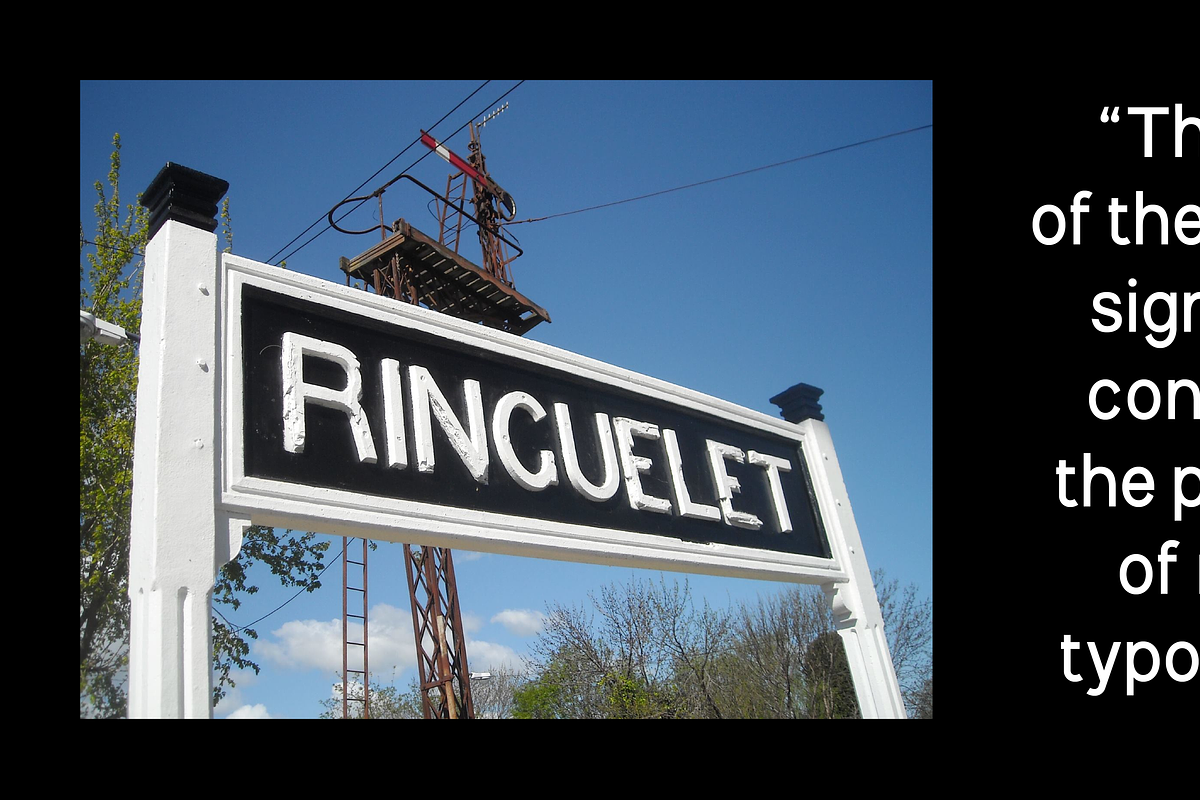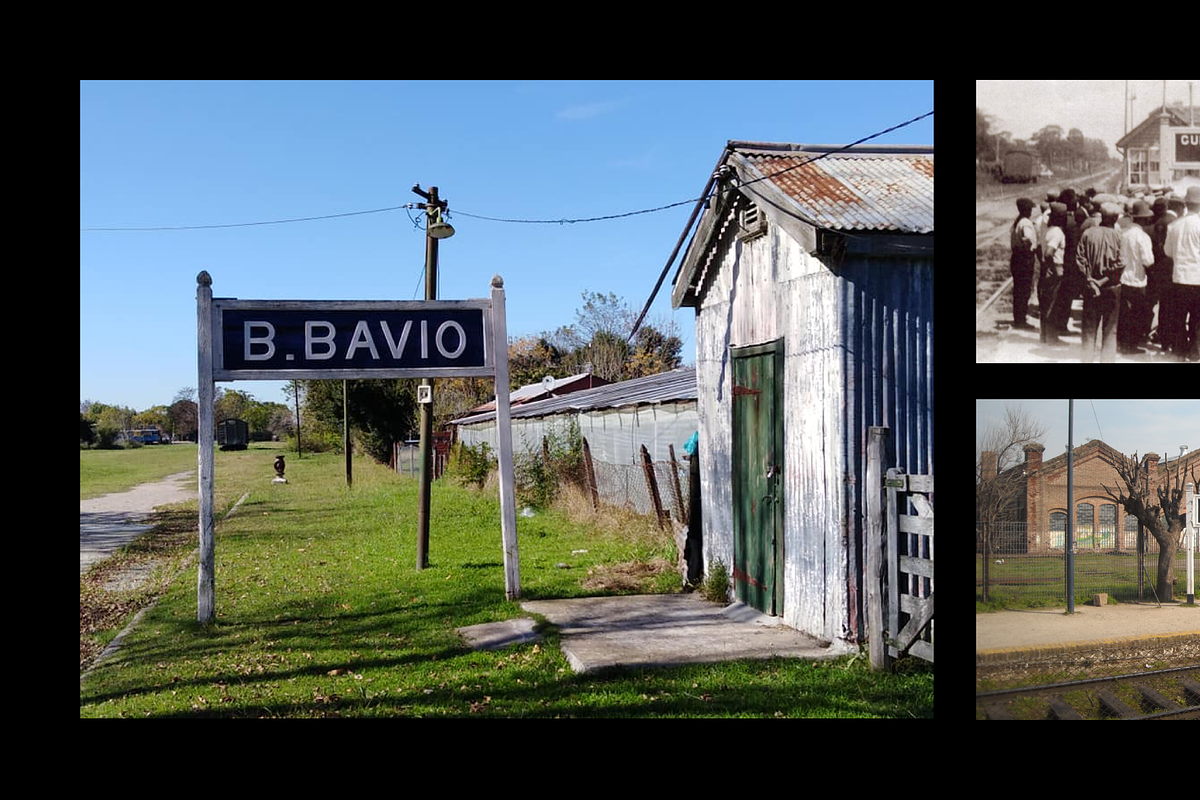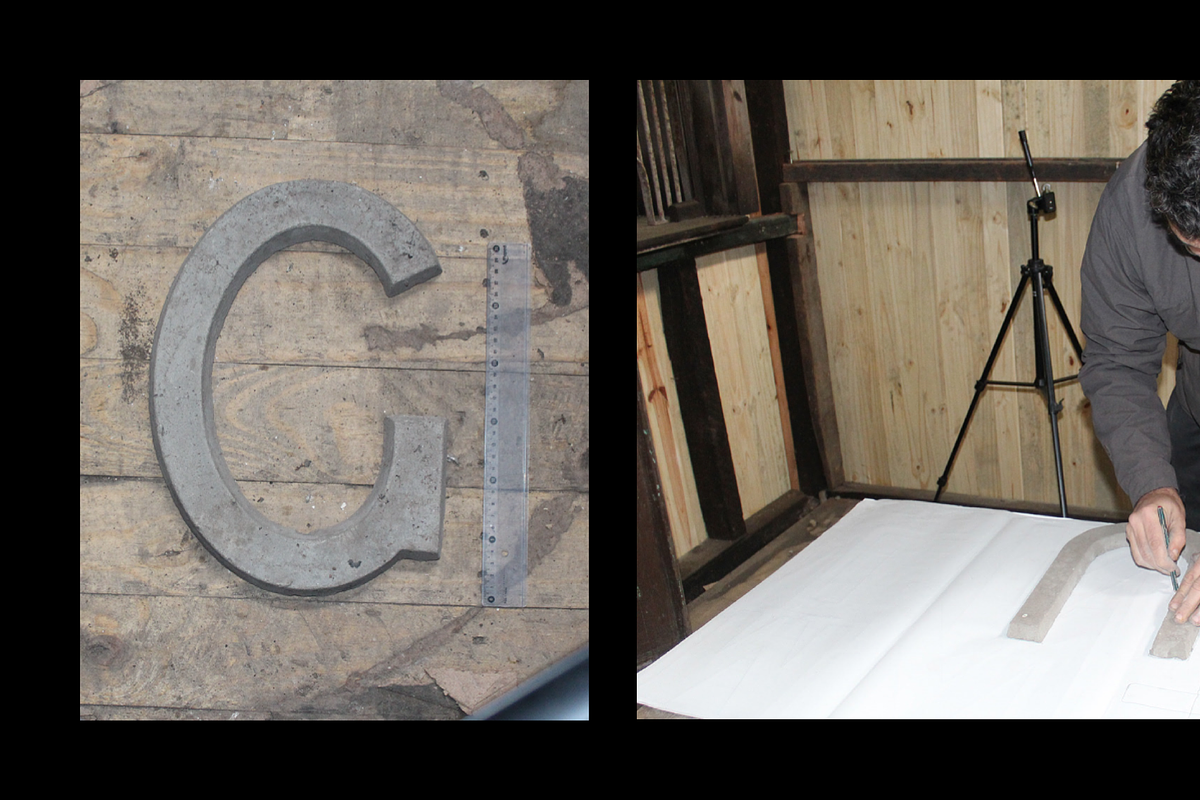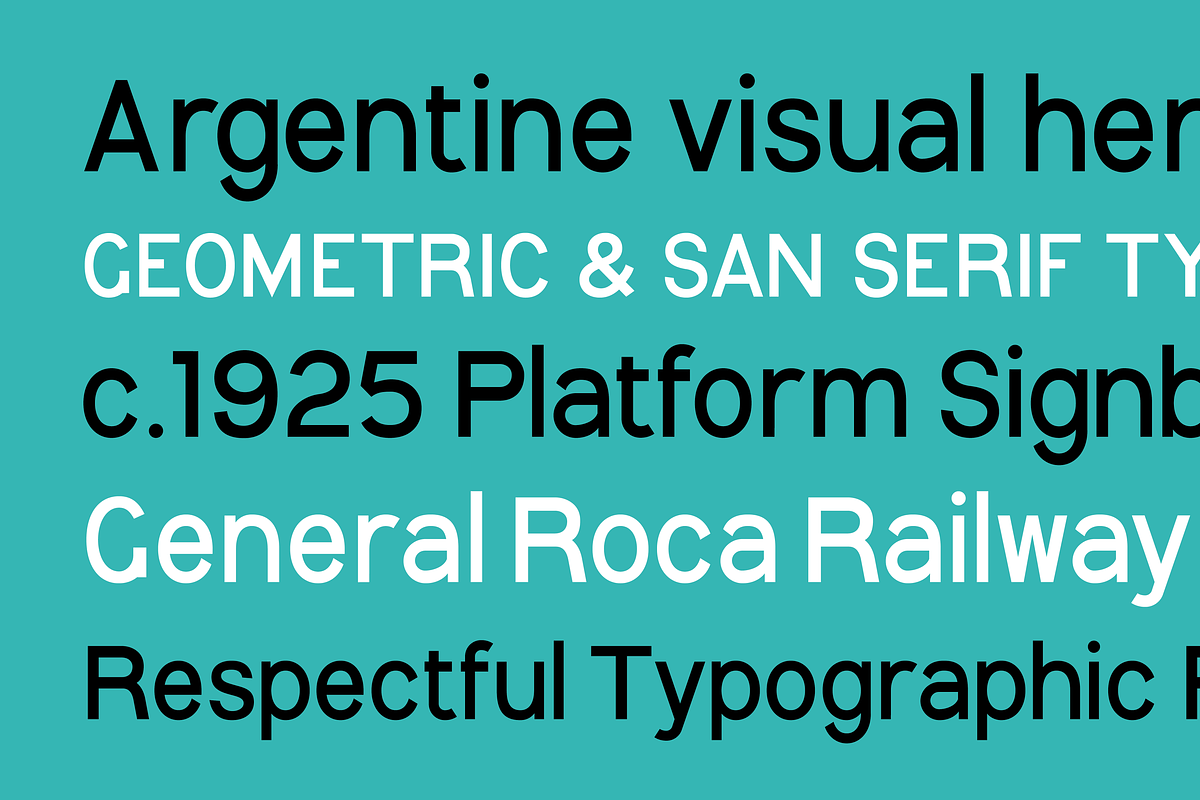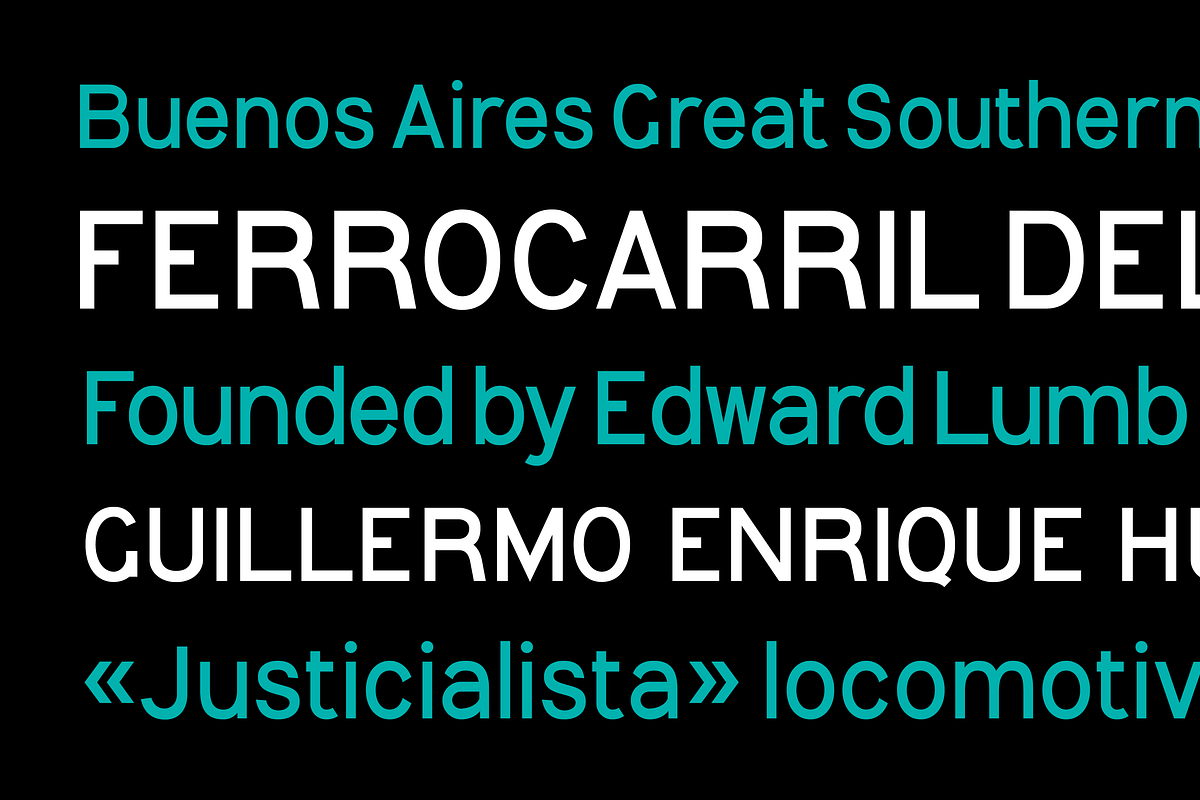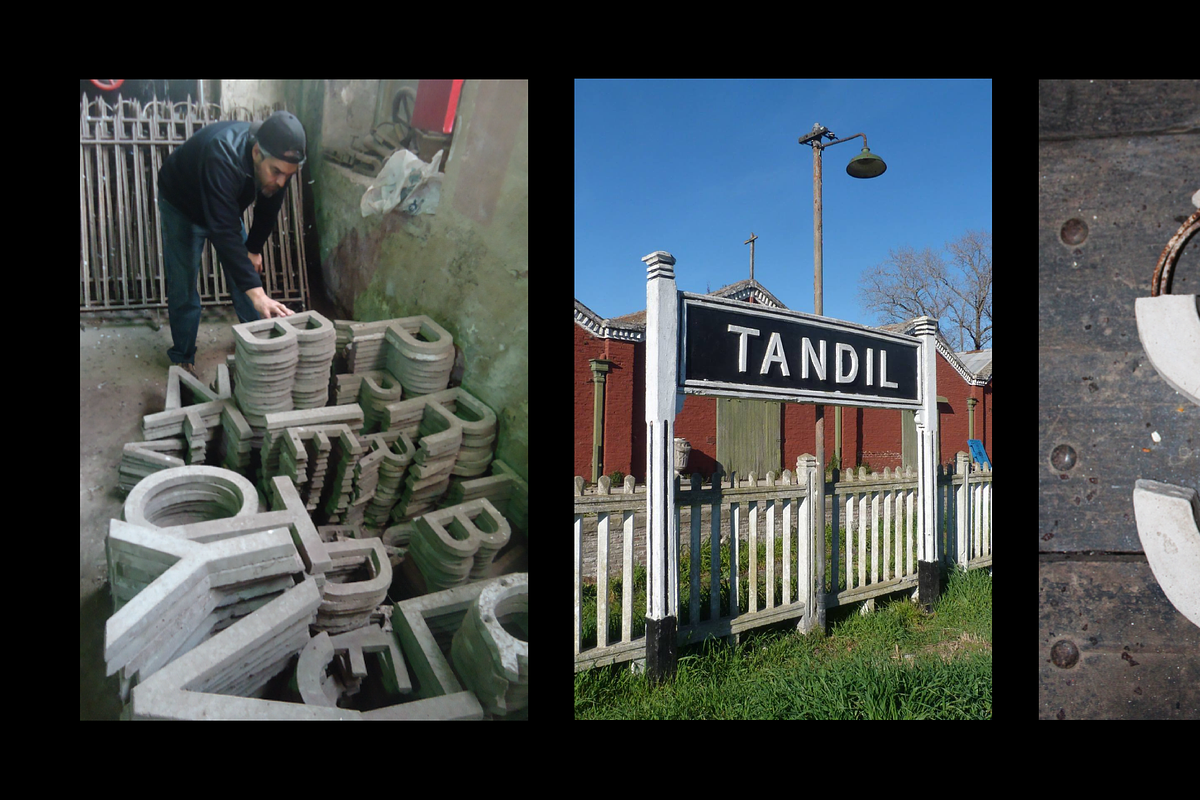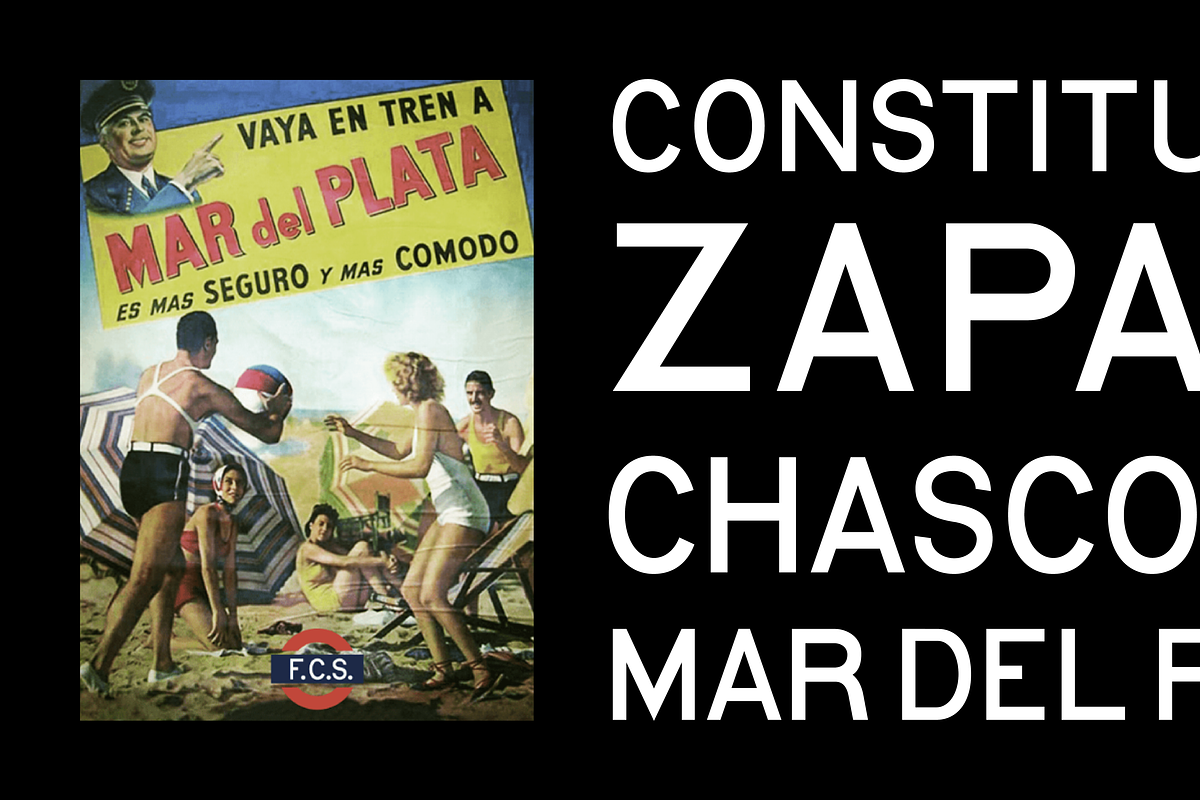
Southern Railway
This sans-serif typeface is a revival of the font used on platform signs by the Ferrocarril Sud railway in Argentina around 1925. It's part of a typographic archaeology project called 'Tipografía Histórica Ferroviaria,' aimed at preserving and sharing Argentine visual culture. The funds generated from commercializing these typefaces support further research.